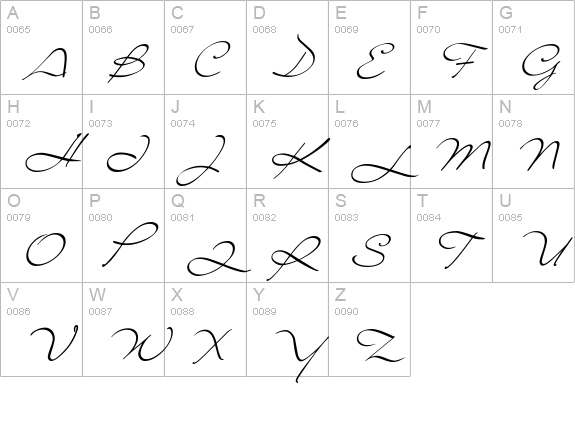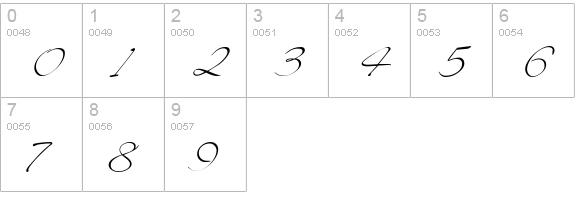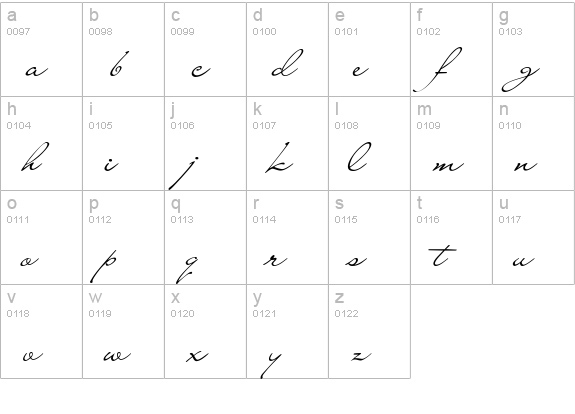
Liana font is a versatile and elegant typeface that will elevate your design projects to the next level. With its sleek lines and modern appeal, Liana is the perfect choice for branding, logos, invitations, and more. This sophisticated font exudes a sense of sophistication and style, making it ideal for any creative endeavor. The best part? Liana font is completely free to download at FontsMarket.com. Yes, you heard that right - this stunning font can be yours at no cost. So why wait? Add Liana font to your collection today and let your creativity soar with this beautiful typeface.